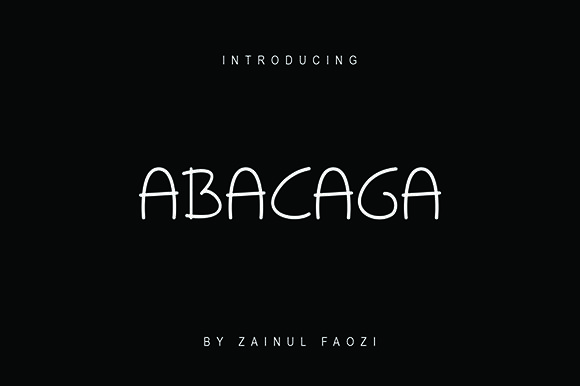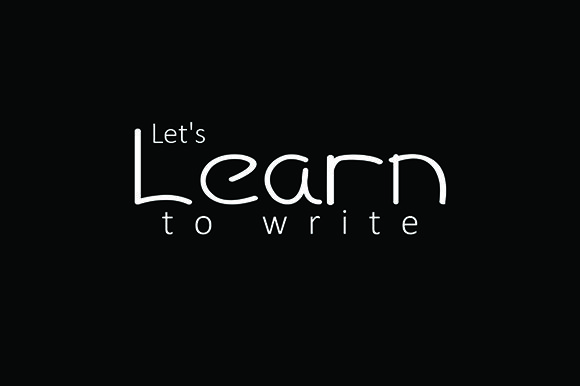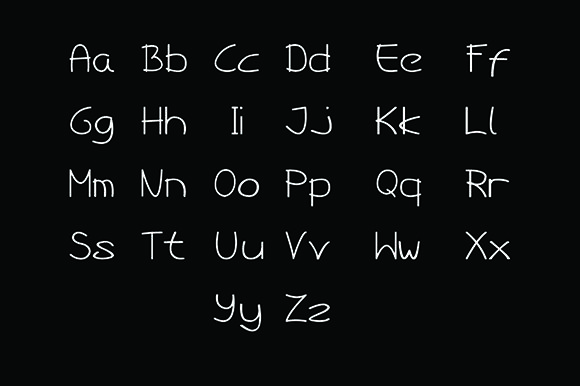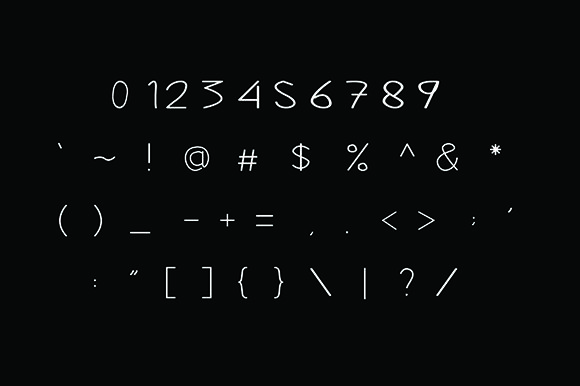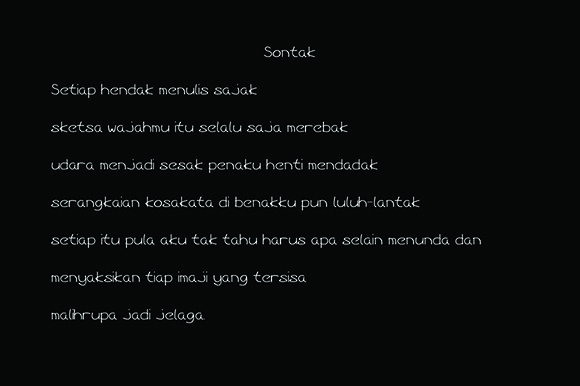
Abacaga Font
About Abacaga Font
Abacaga is an equally weird and stunning handwritten font with a smart feel. Use it to add a touch of authenticity to any design project.